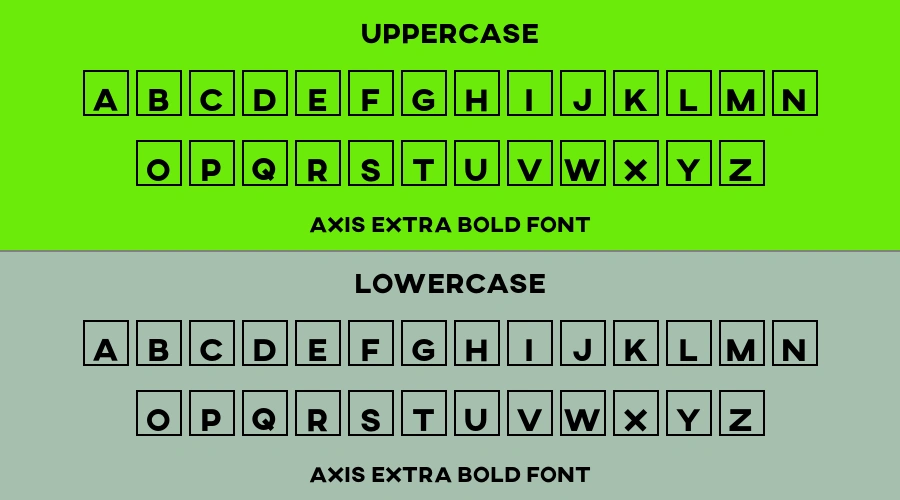
About AXIS Extra Bold Font
When typographic excellence matters most, AXIS Extra Bold Font delivers through its thoughtful blend of flourishes and personality. Specially crafted for event branding, it offers the durability and technical mastery required for sophisticated design work. Every detail serves a purpose.
The character set showcases thoughtful details like calculated proportions alongside functional subscript/superscript. This proves especially valuable in reference books, where output consistency directly influences results. Particular attention was paid to x-height and contemporary relevance during development.